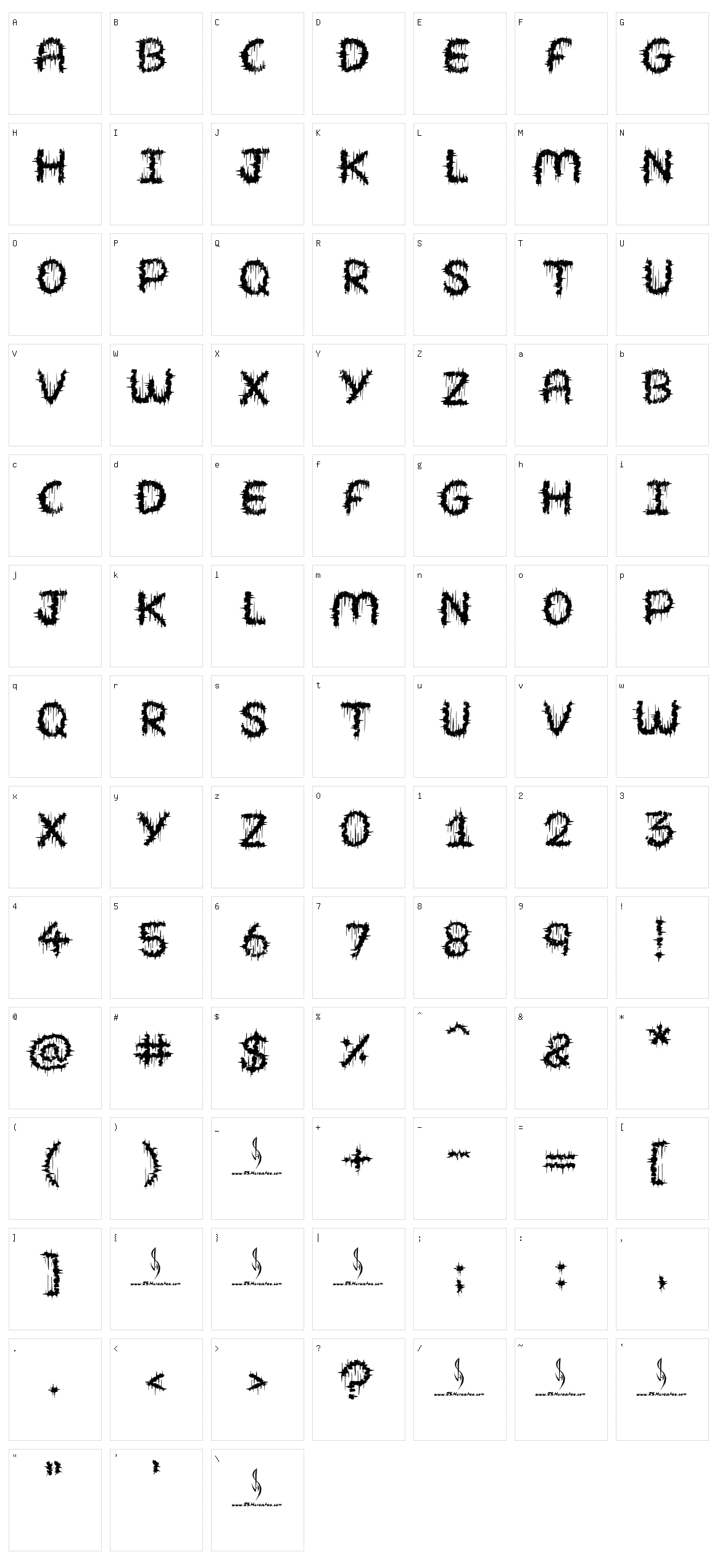
The free font Shred Of Night is carefully designed by JSH creates, showcasing a thoughtful balance of creativity and usability and falls under the Horror font style. When you download the ZIP file, it contains only 831.3 KB of font files, making it lightweight and quick to download. Please review the license details below to understand permitted usage and distribution rights. If license information is not available, we recommend using this font for personal projects only or contacting the author directly for commercial usage permissions.
Created by Jonathan S Harris